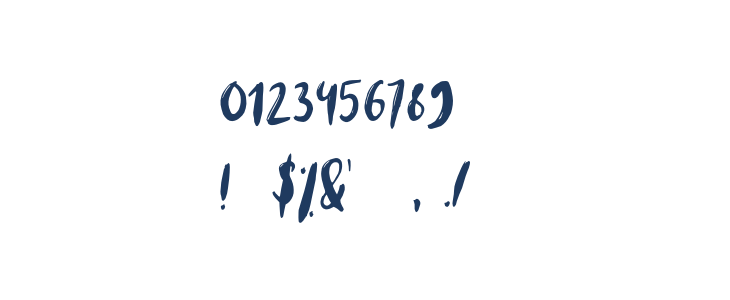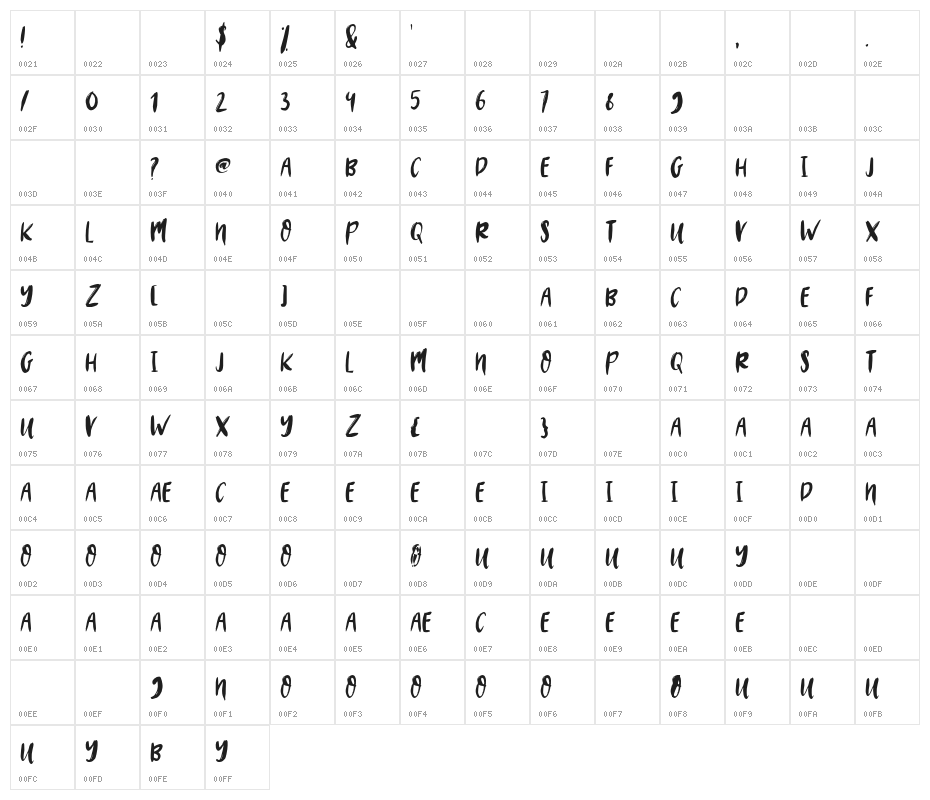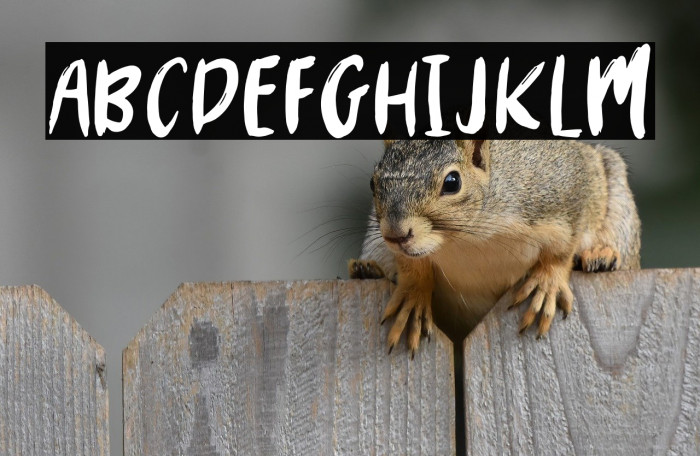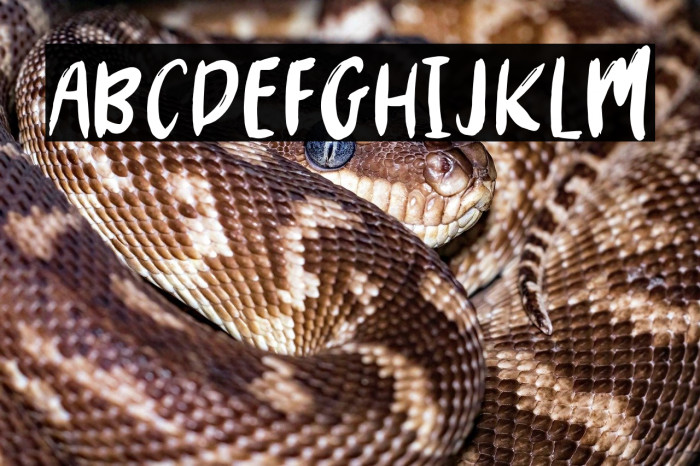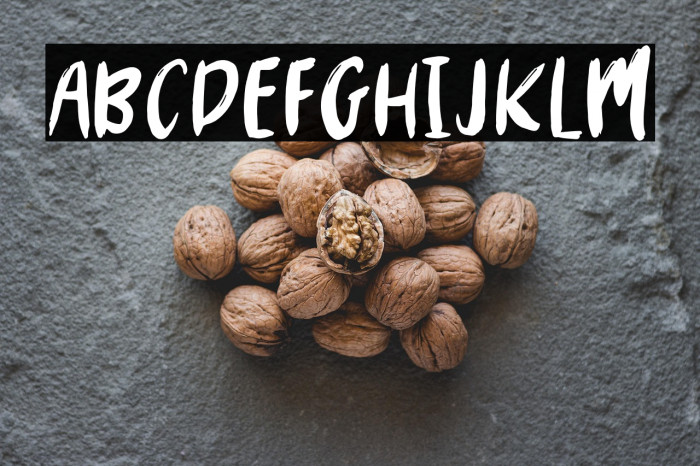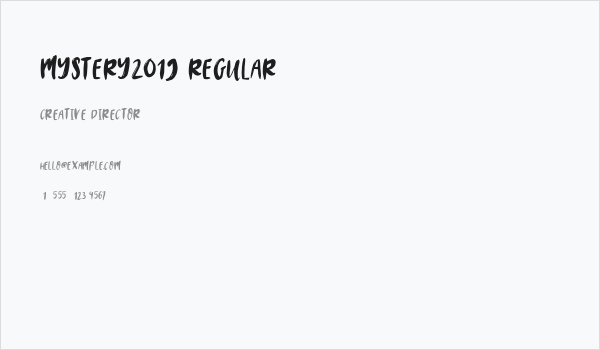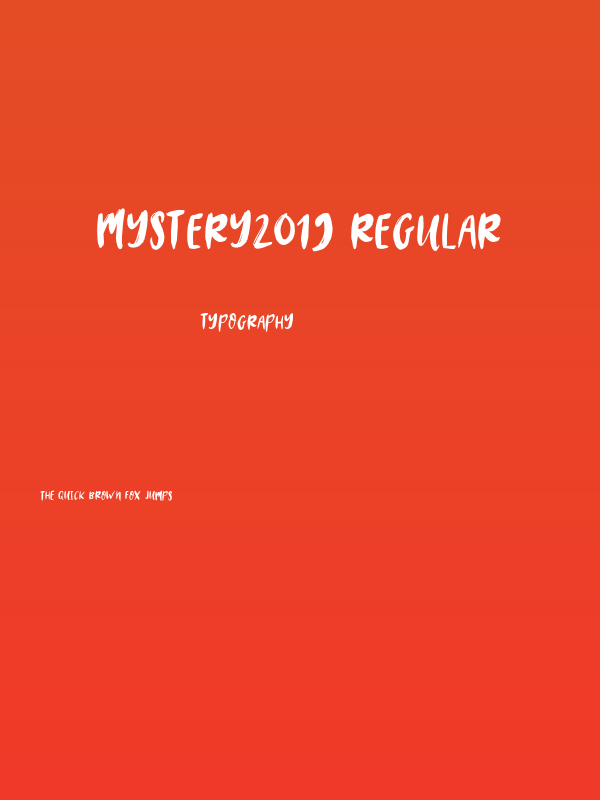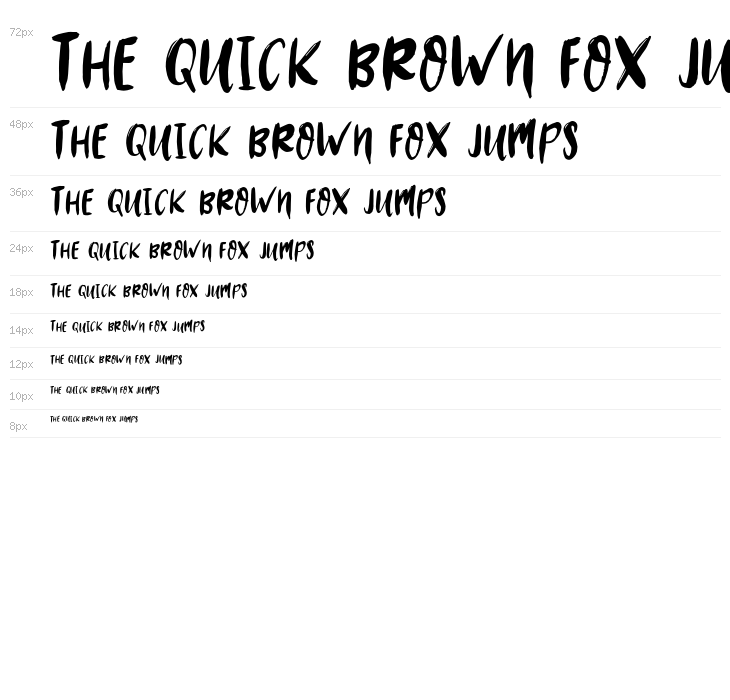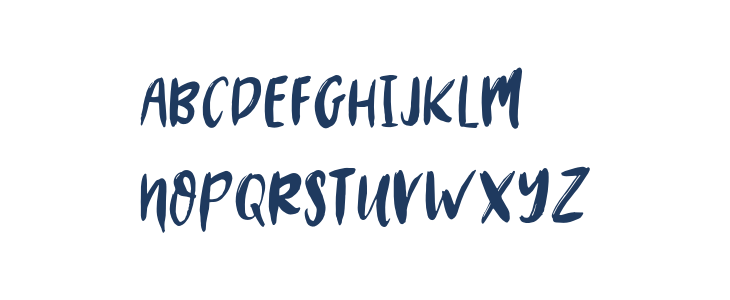
MYSTERY2019-Regular Font
MYSTERY2019-Regular Description
This font features a bold, brush-like style with a dynamic and energetic appearance. The strokes are uneven, giving it a hand-painted feel that adds a personal touch to any design. The uppercase and lowercase letters maintain a consistent flow, while the numbers and special characters complement the overall aesthetic. The font's organic and fluid nature makes it stand out, providing a sense of movement and creativity. Its artistic flair is perfect for projects that require a bold statement or a creative edge.
| Proposed Projects | Ideal for posters, branding, packaging, and creative projects that require a bold and artistic touch. |